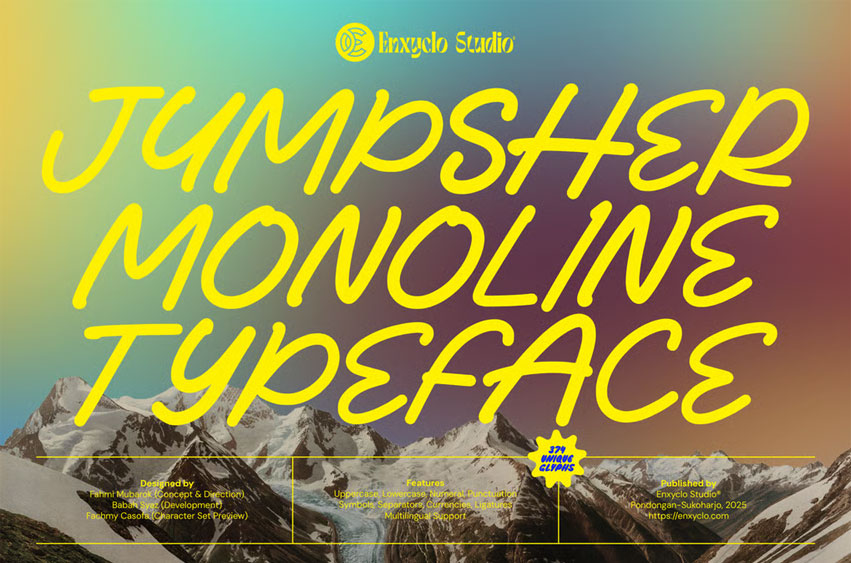
Jumpsher Font Elevate your creative projects with Jumpsher, a sleek and elegant monoline handwritten typeface designed for modern versatility and effortless style. Crafted by Enxyclo Studio, Jumpsher offers a dynamic yet clean handwriting aesthetic that brings sophistication and personality to any design.
• Smooth monoline script with consistent stroke weight for a polished look
• Complete set including uppercase, lowercase, numerals, punctuation, symbols, and currency marks
• Extensive multilingual support with 374 unique glyphs, including ligatures and alternates for fluent typography
• Balanced letterforms that ensure readability while maintaining an artistic flair
• Ideal for print and digital usage across various platforms
Perfect for
• Stylish branding and logo creation that requires a modern handwritten signature feel
• Invitations, greeting cards, and personal stationery that need an elegant touch
• Social media posts, posters, and flyers that demand a refined yet approachable look
• Packaging design, particularly for beauty and lifestyle products
• Headlines and display text in websites, blogs, and editorial layouts that want to stand out with clean handwriting
Add a touch of graceful simplicity to your designs with Jumpsher, the perfect monoline typeface to express modern elegance and creative subtlety.